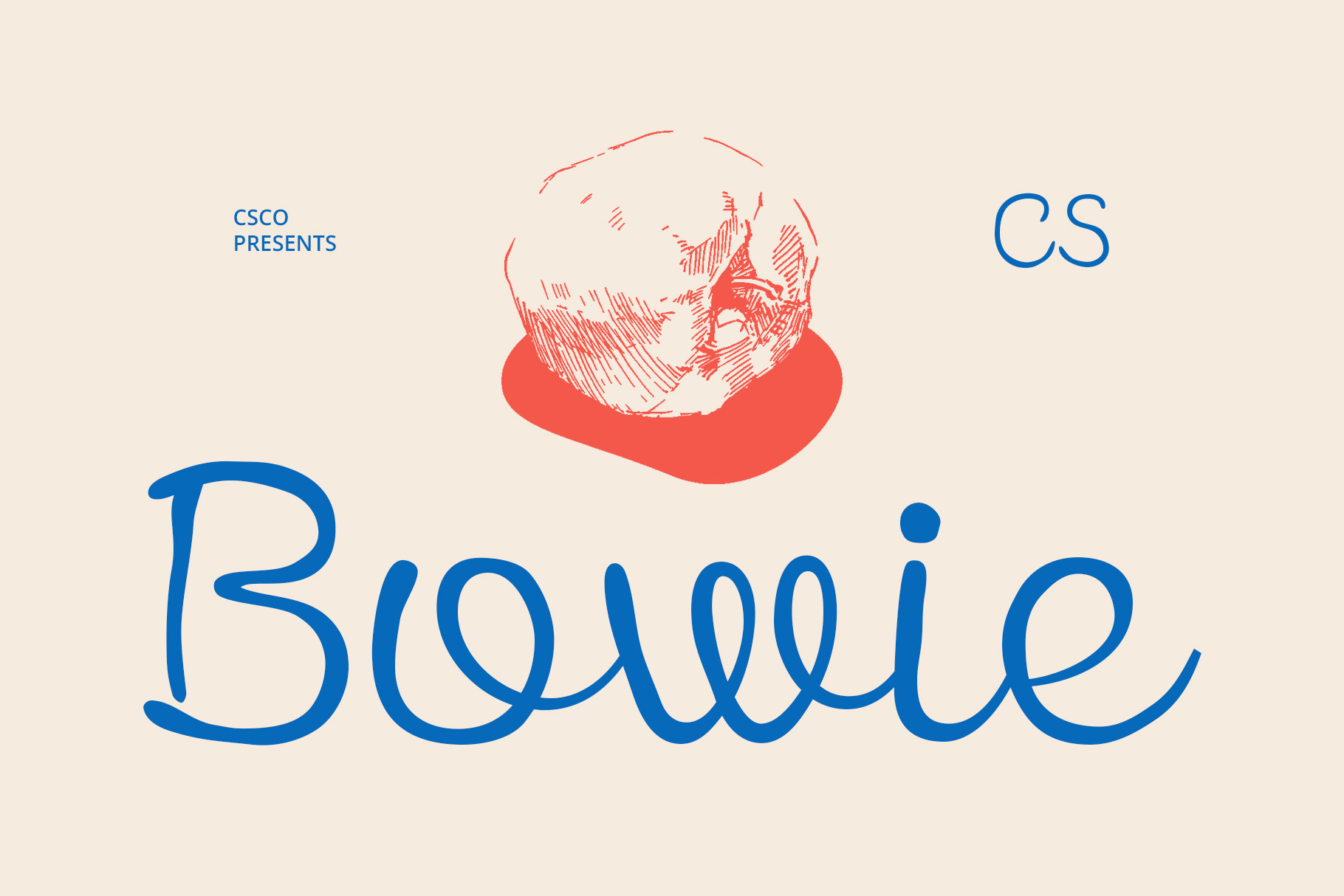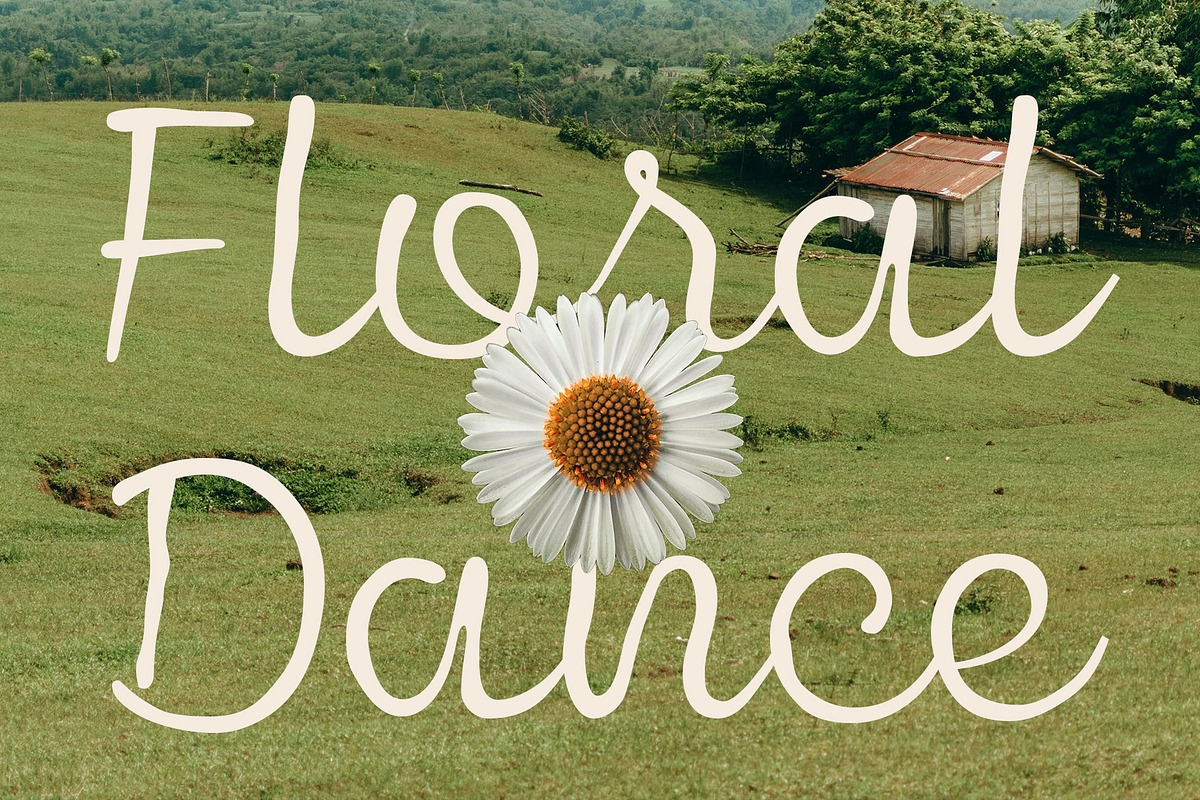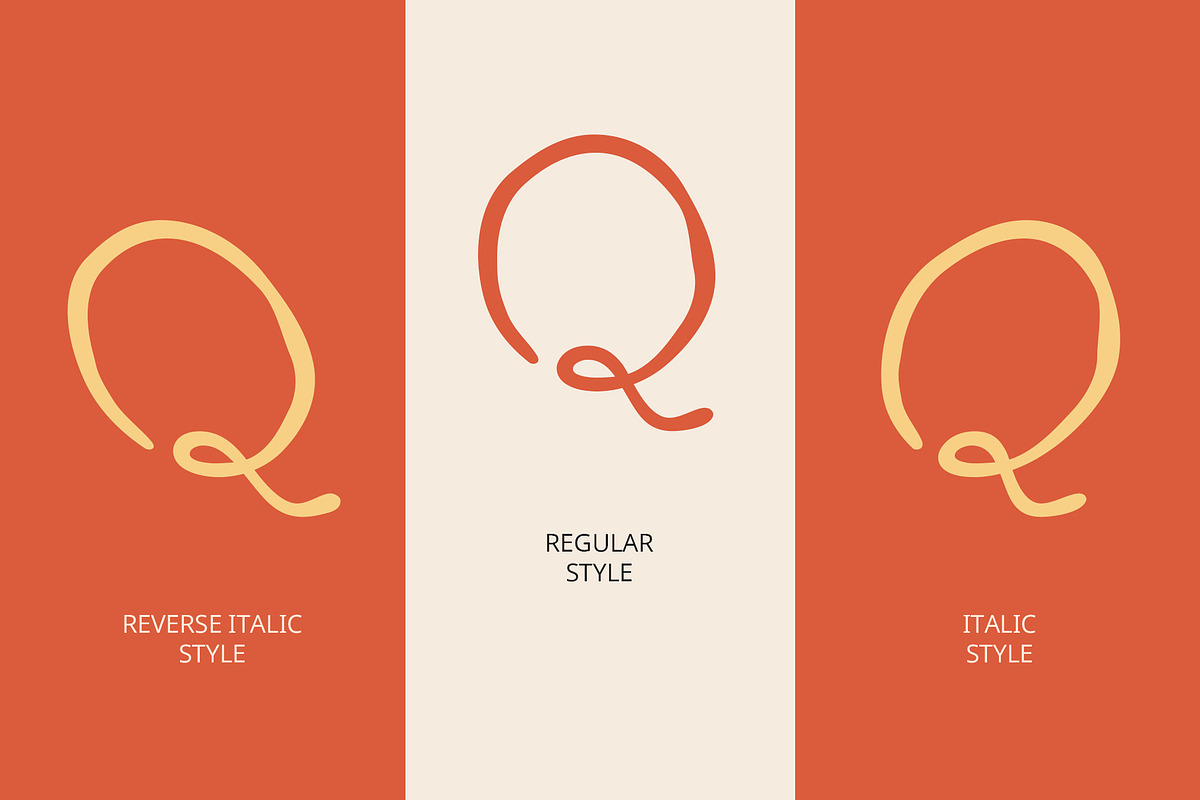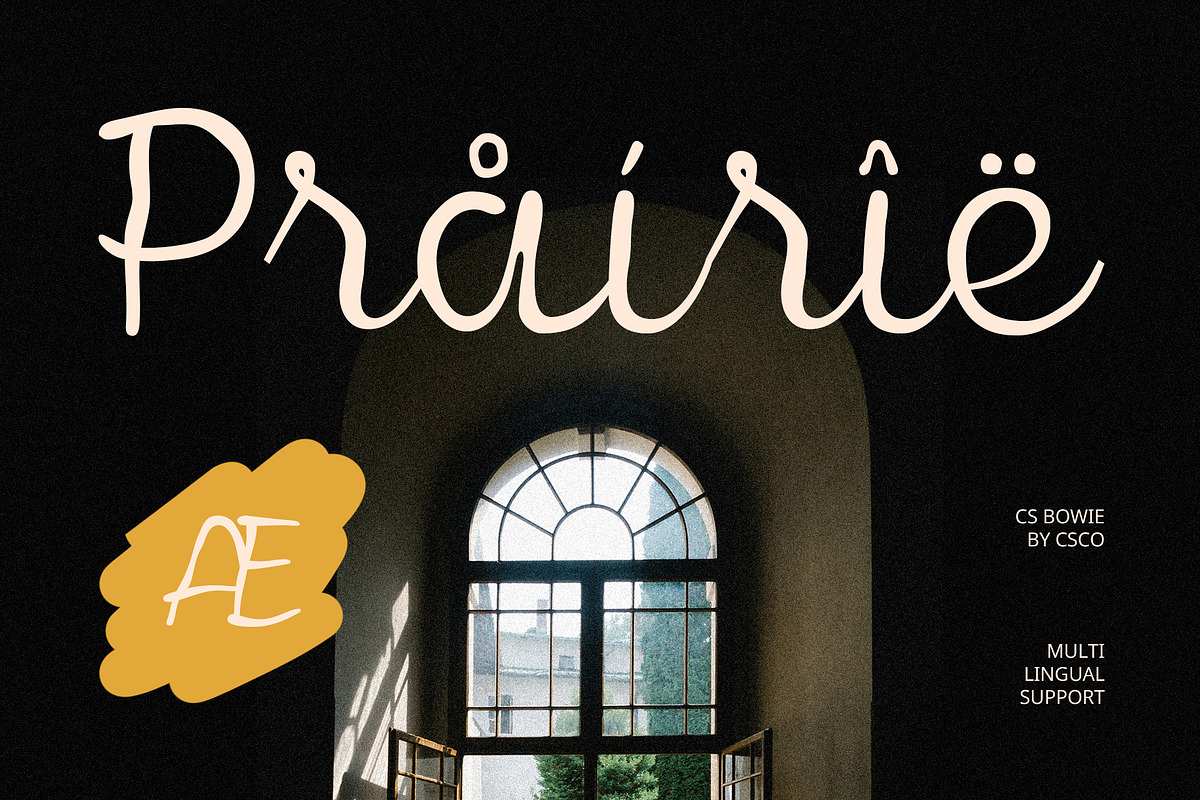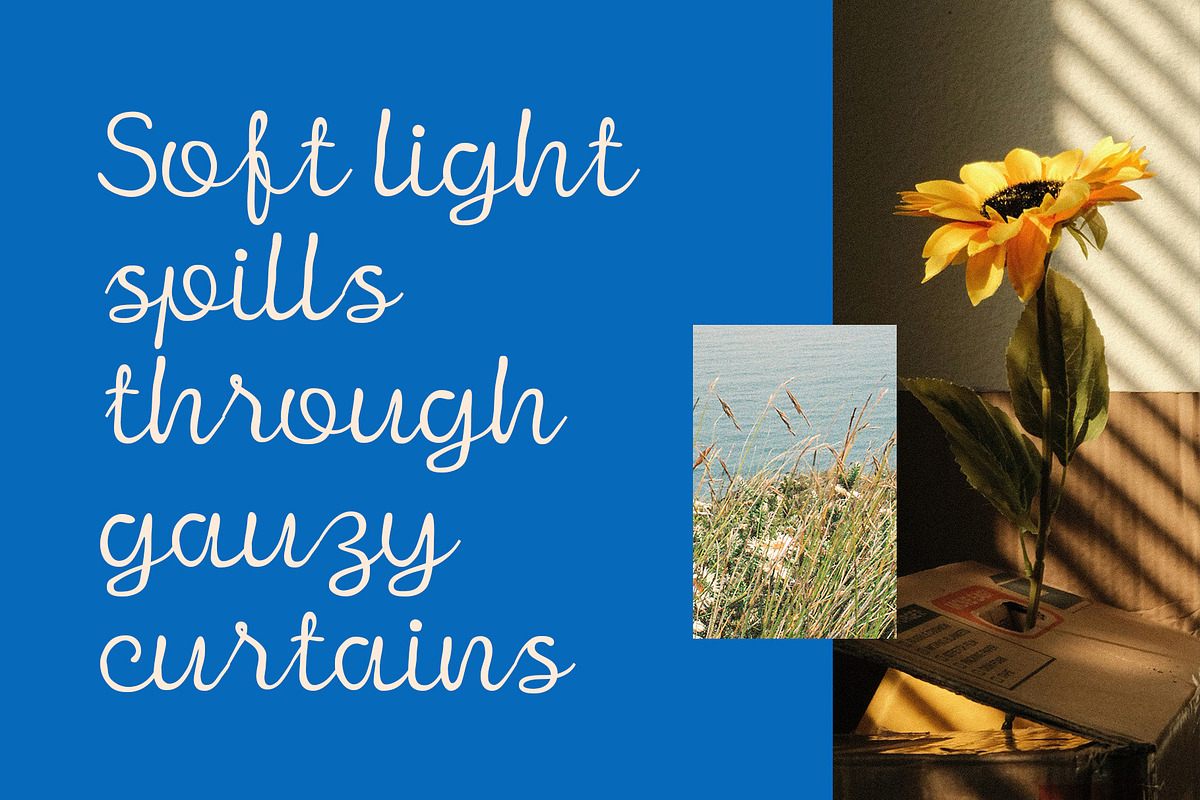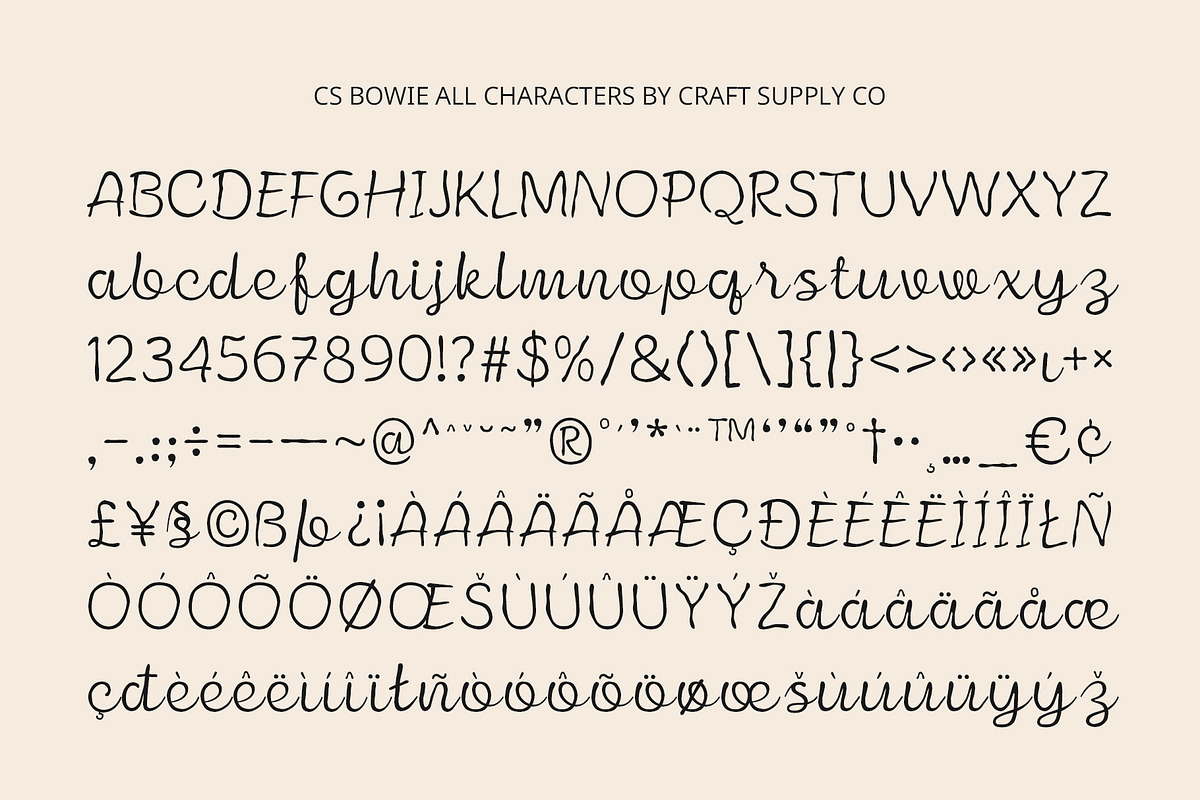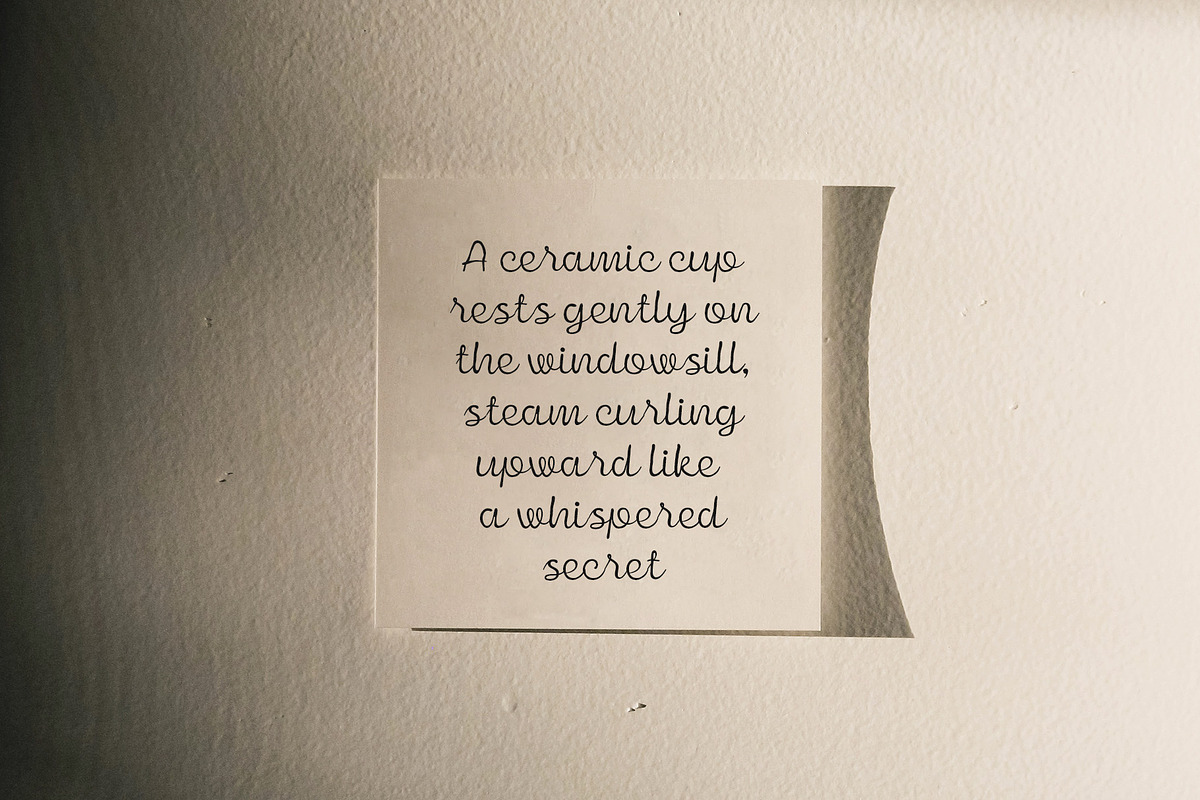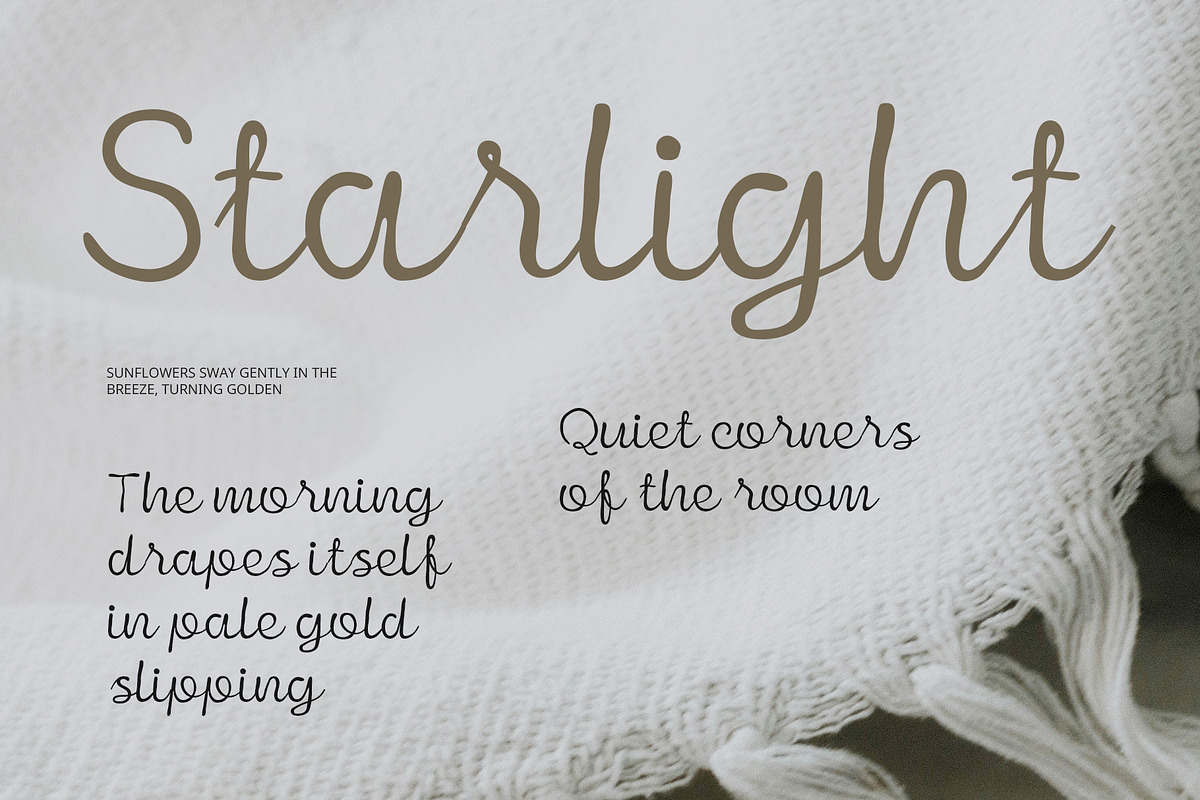
CS Bowie – Script Font
CS Bowie – Script Font: Where Elegance Flows Naturally
Clean and Graceful Handwritten Style CS Bowie is a script font that features a clean, flowing handwritten form designed to evoke elegance and modern charm. Each stroke is crafted to look natural and refined, combining neatness with a touch of personality—perfect for designs that aim to feel intimate, stylish, and authentic.
Aesthetic Beauty with a Personal Touch The handwriting-inspired shapes give CS Bowie a soft and approachable look while maintaining visual sophistication. It delivers a sweet and graceful impression, ideal for feminine or lifestyle-focused branding, elegant menus, or modern packaging that calls for a personal yet polished tone.
Versatile for Stylish and Creative Projects Whether you’re designing product labels, menu cards, editorial layouts, or wedding stationery, CS Bowie adapts seamlessly to a range of creative applications. Its blend of clarity and elegance ensures the message stands out while looking beautifully curated.
Perfect Balance of Neatness and Expression CS Bowie offers the ideal balance between structure and fluidity. With its balance of structured neatness and organic flow, CS Bowie is ideal for creatives who want to convey beauty with sophistication. It adds warmth to minimalist layouts and character to editorial spreads. The font seamlessly adapts to both digital and print formats, giving designers the flexibility to use it across branding materials, packaging, social media visuals, and more.
- CS Bowie Regular
- CS Bowie Italic
- CS Bowie Reverse Italic